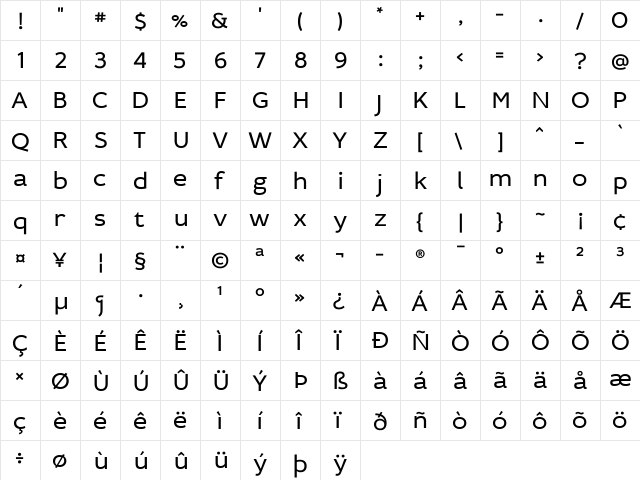
Idealist Sans Regular
| Foundry | Glenjan |
| Designer | Glenjan |
Design Context for Idealist Sans Typeface
Idealist Sans is a composed and adaptable typeface that performs quietly and consistently across a wide range of design contexts.